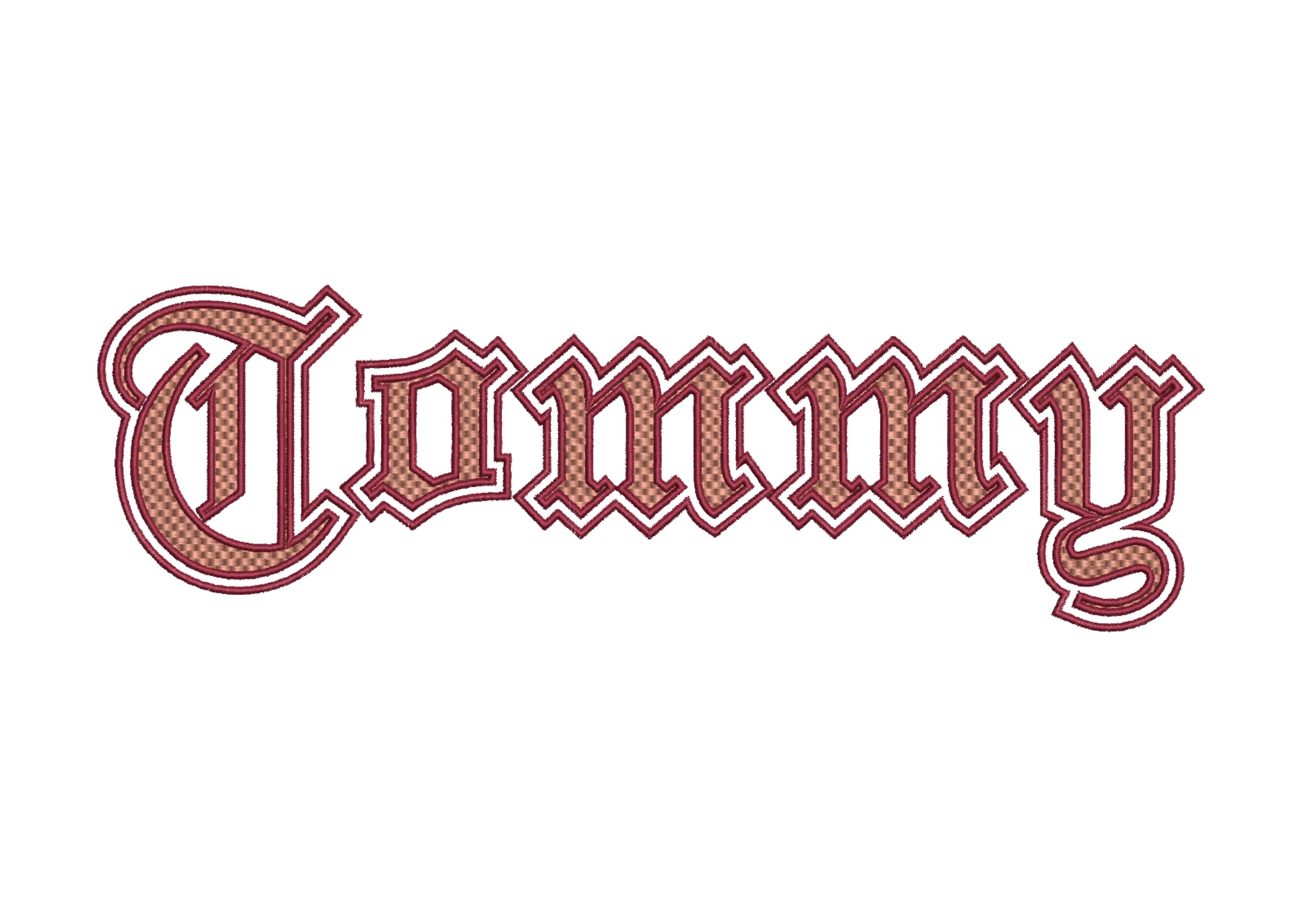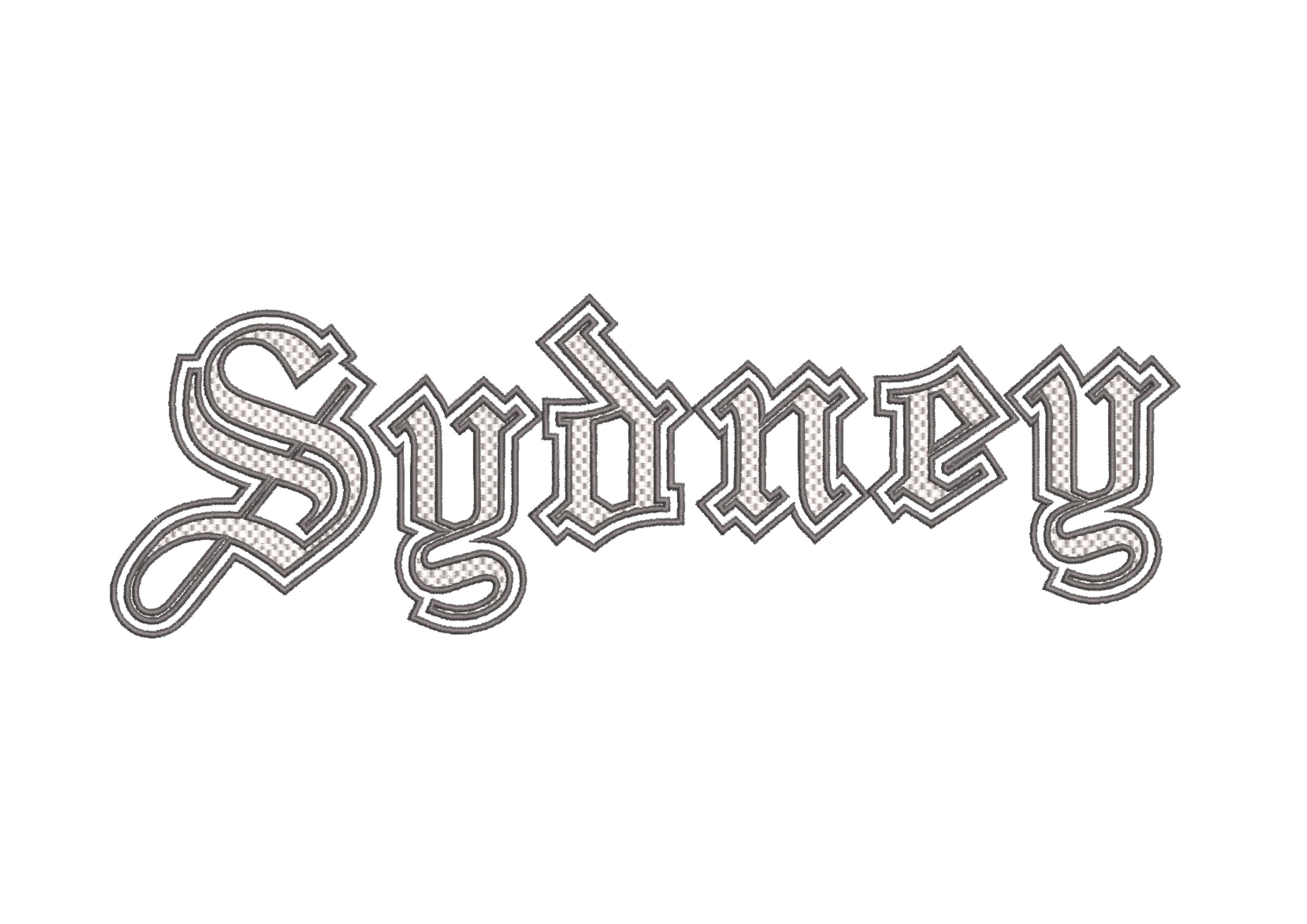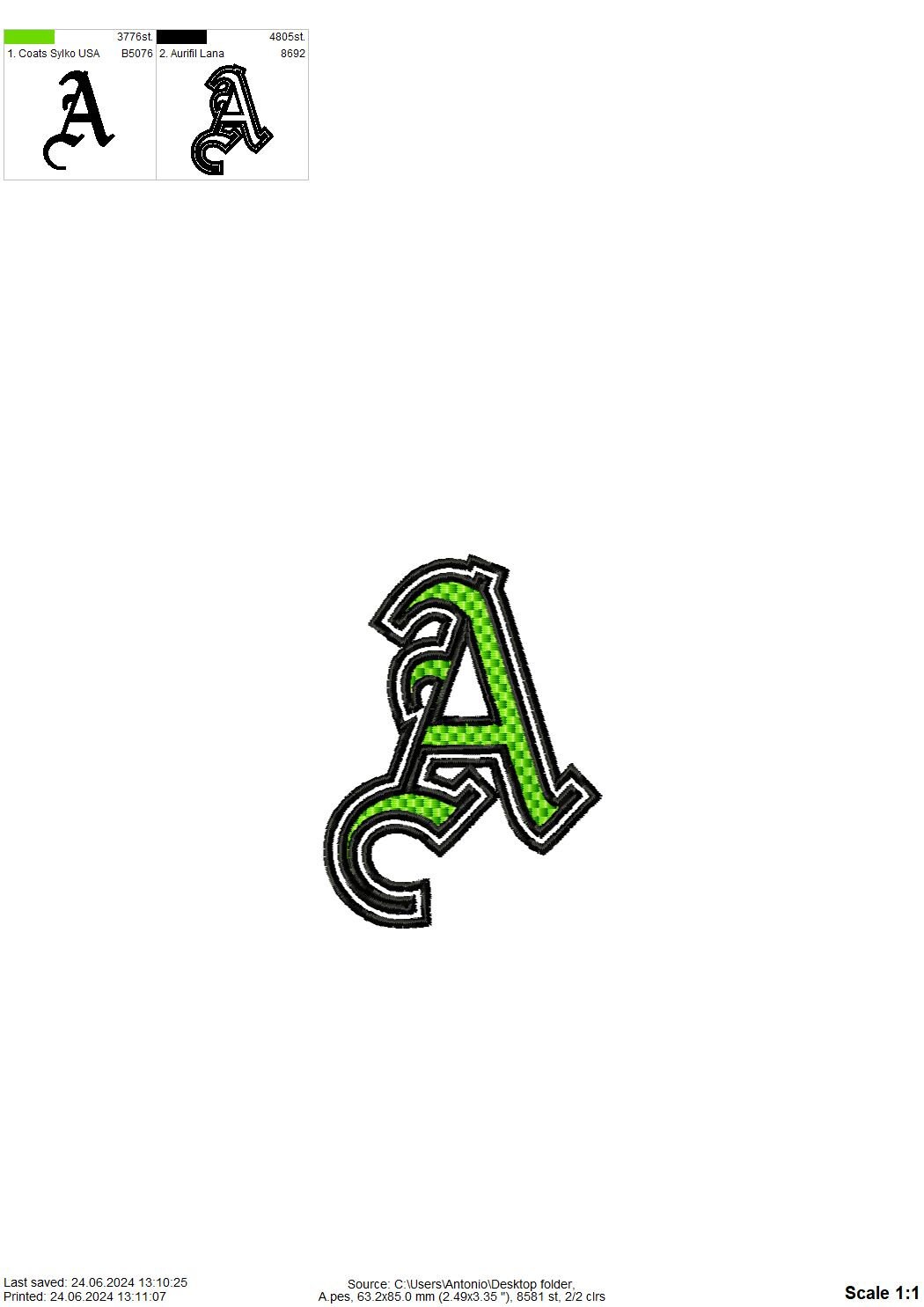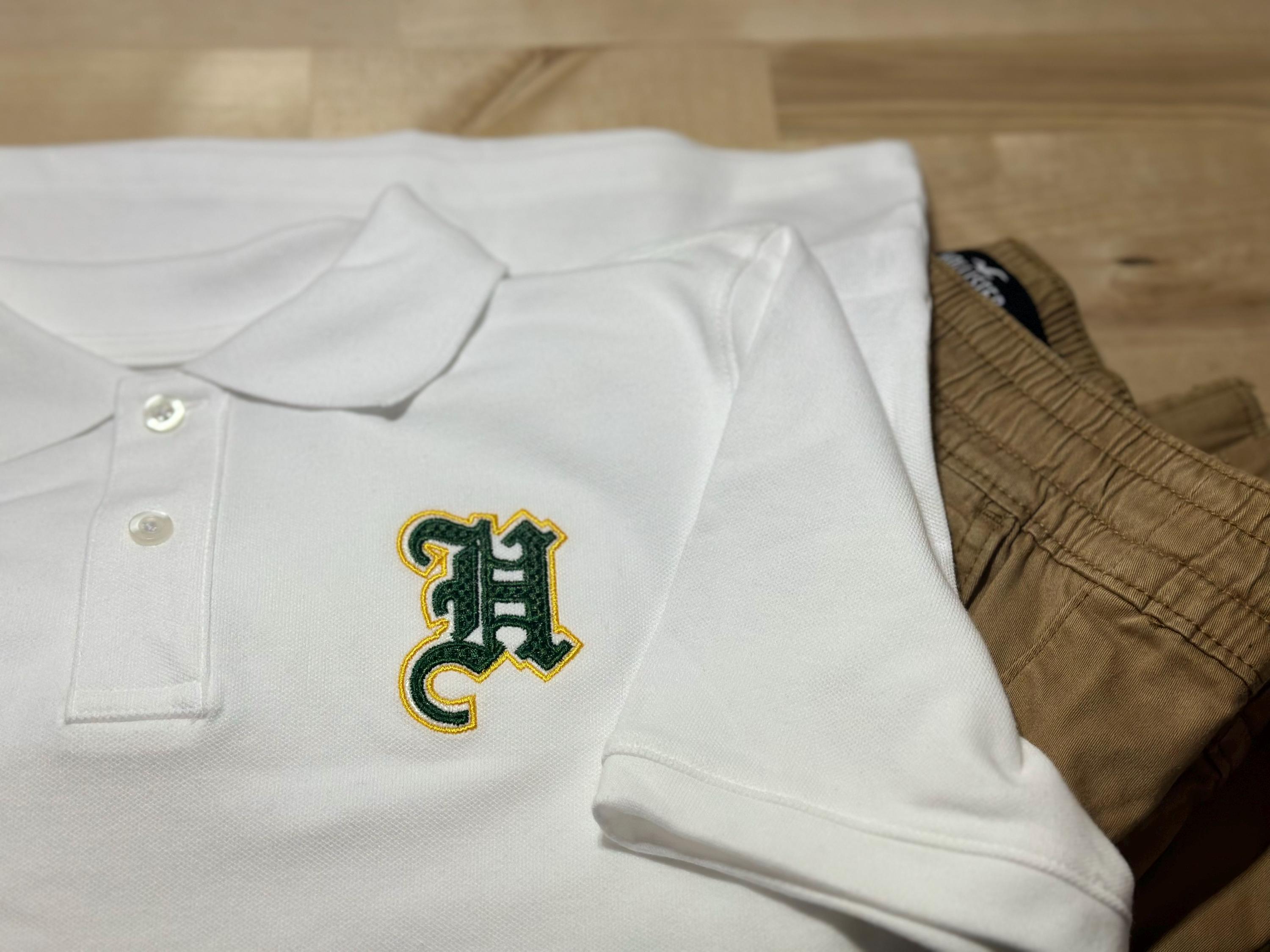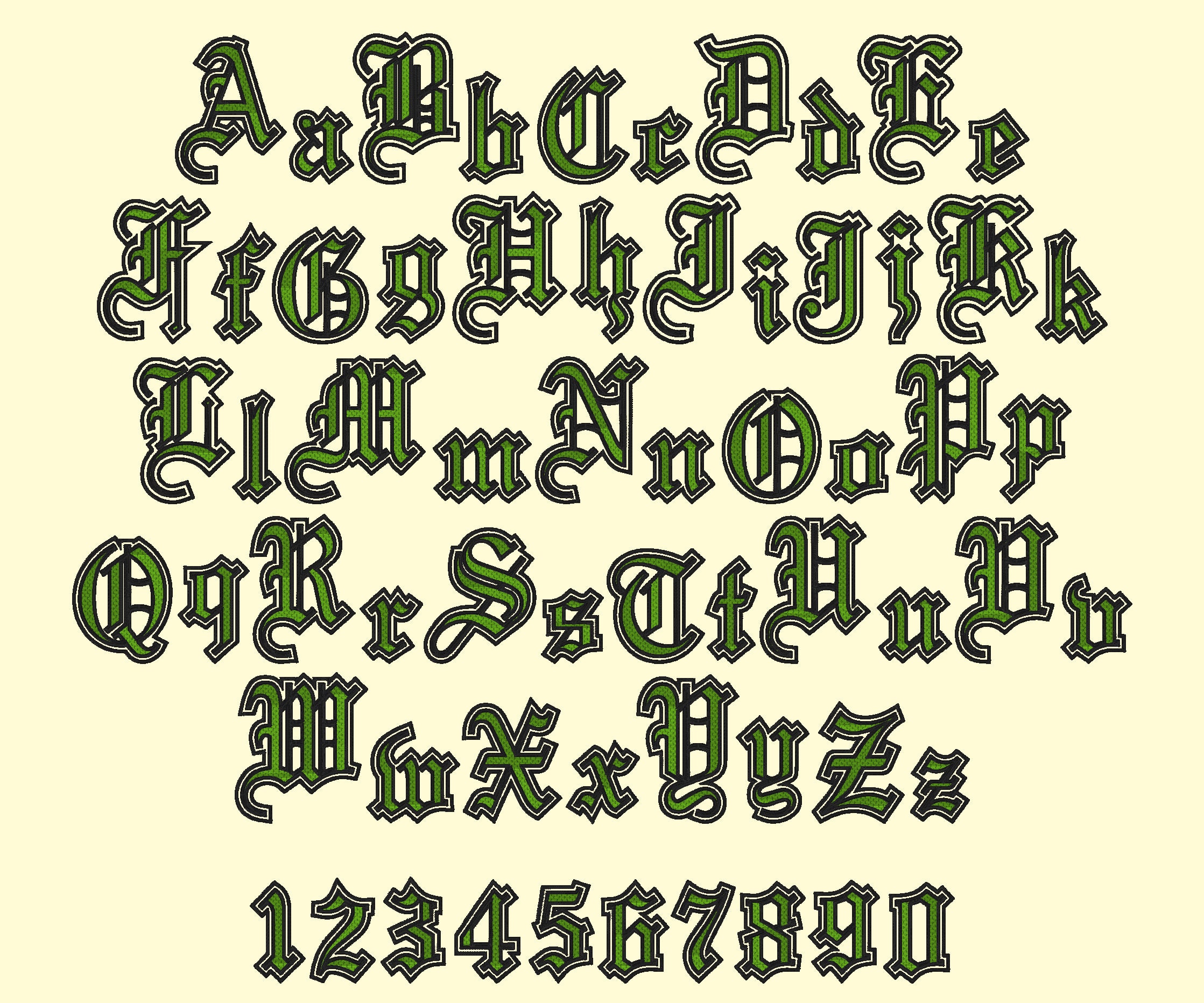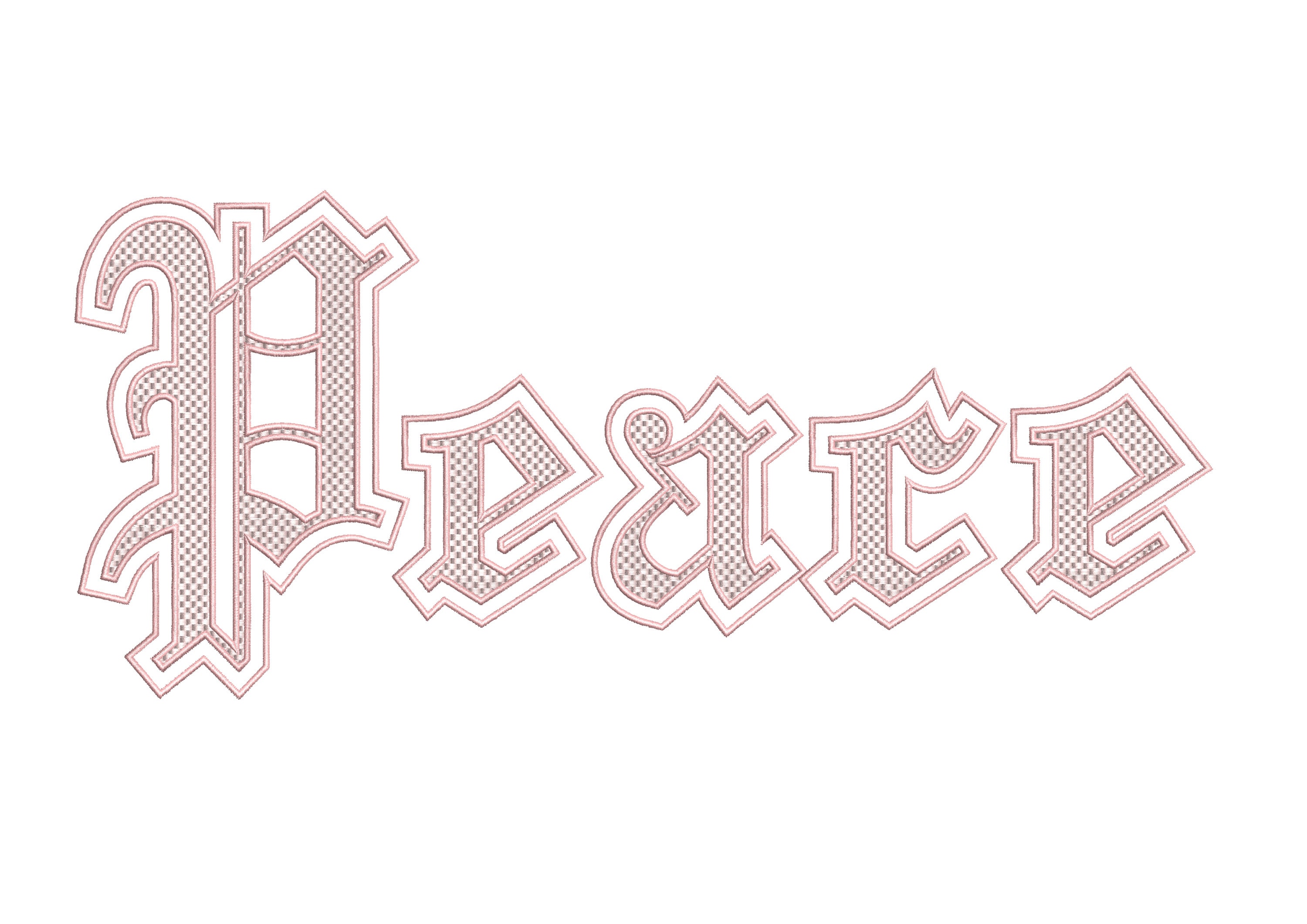
Old English two outline Font double outline alphabet machine embroidery designs in satin stitch 2 lines letters in sizes 2.6 thru 6 inch BX
This is a waffle stitch textured font, with two outlines to get quick results and a modern look.
Whole alphabet uppercase and lowercase letters, and numbers.